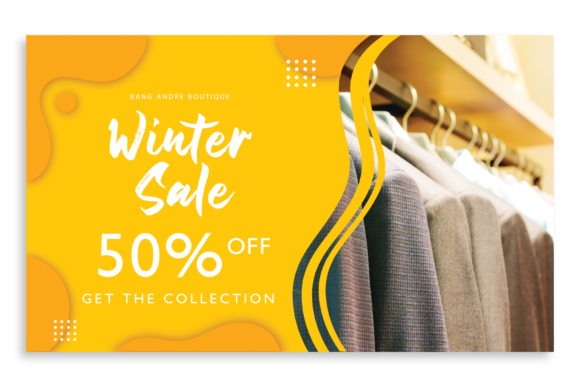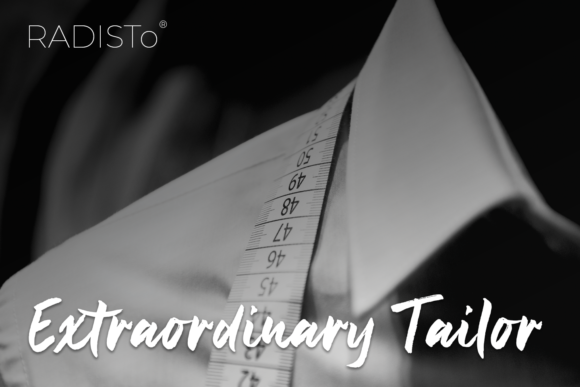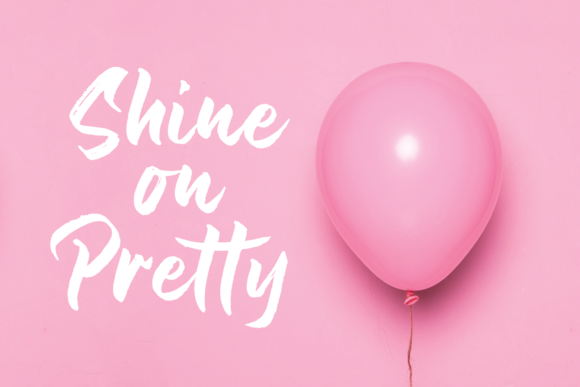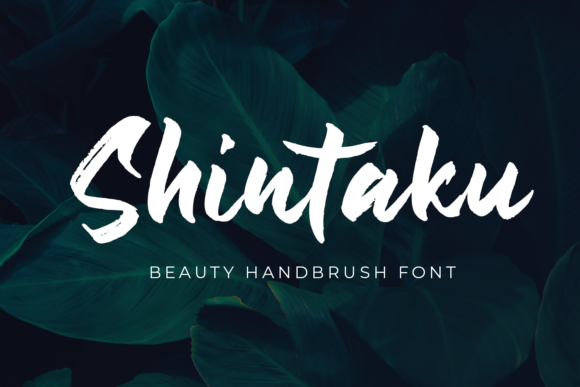
Introduction to Shintaku Font
Shintaku is a beautiful handdrawn script font that feels both authentic and elegant.
It will deliver any message with charm and style .
Key Features of Shintaku Font